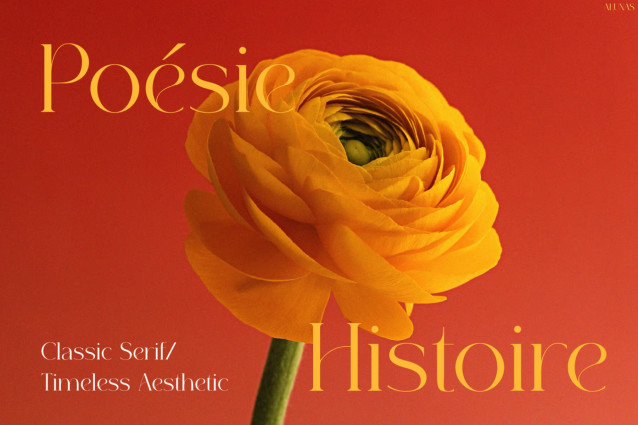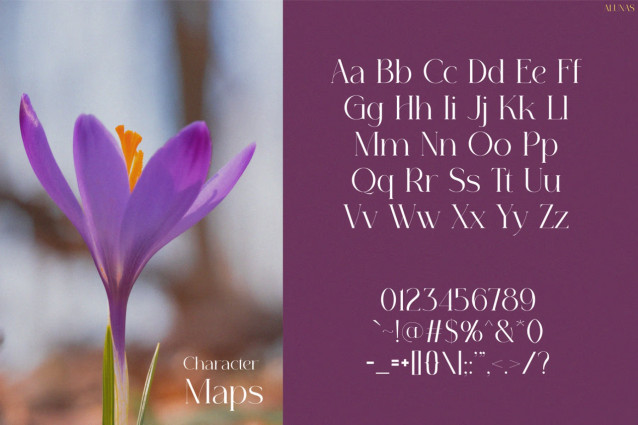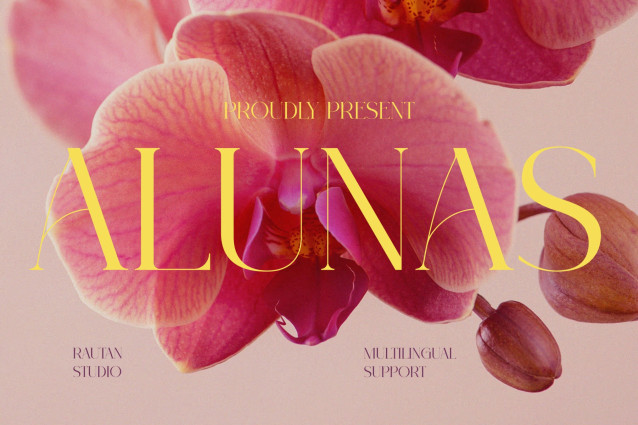
Alunas Font
Instagram Font Alunas brings the softness of blooming flowers into a graceful editorial serif that feels fresh, poetic, and naturally sophisticated. Instead of competing for attention with excessive details, Alunas captures hearts through delicate curves, refined contrast, and elegant proportions. Moreover, every letter flows with effortless beauty, creating headlines that feel light yet unforgettable.
As a result, your designs express warmth, femininity, and timeless charm. At the same time, the balanced structure keeps every word crisp and readable in both print and digital formats. Furthermore, Multilingual Support for 67 languages helps your message blossom beautifully across international audiences.